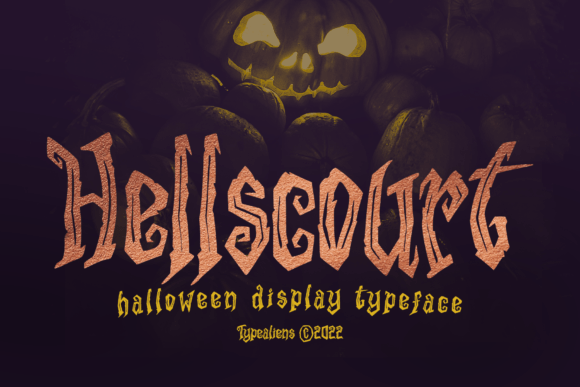
Prepare to be spellbound by Hellscourt, a display font that oozes spook and mystery. Its eerie charm will cast a spell on your Halloween or horror-themed creations, evoking an atmosphere that sends shivers down spines.
Hellscourt's spine-tingling glyphs will ignite your imagination, conjuring images of haunted houses, ominous graveyards, and creatures of the night. Its sharp angles and jagged edges create a visual symphony of terror, leaving an unforgettable mark on any project it graces.
Unleash your creativity with Hellscourt and watch as your designs transform into spine-chilling masterpieces. Its versatility extends from bone-chilling posters to hair-raising book covers, ensuring that your creations will leave an indelible mark on your audience.
With Hellscourt at your fingertips, you'll have the power to:
- Conjure up heart-stopping headlines that send shivers down spines
- Craft chilling invitations that set the mood for unforgettable Halloween parties
- Design spine-tingling book covers that promise tales of terror and suspense
- Create eerie social media graphics that will haunt your followers' dreams
Embrace the dark allure of Hellscourt and let your imagination run wild. Its spooky spirit will elevate your designs to new heights of horror, leaving your audience spellbound and craving more.